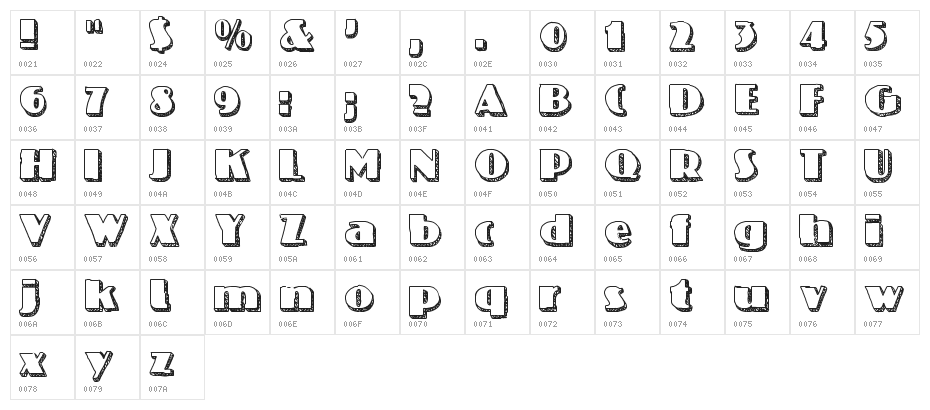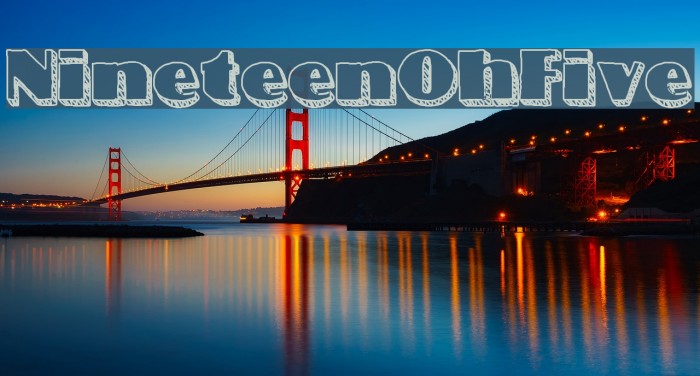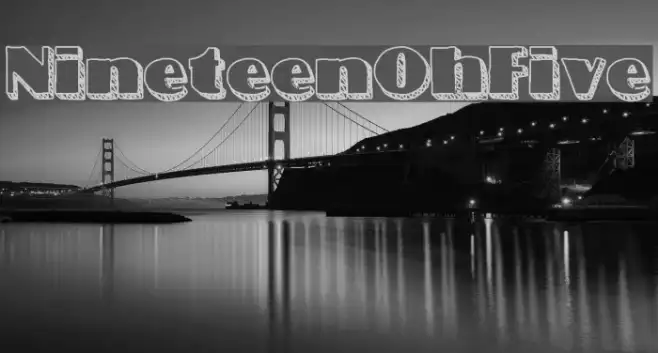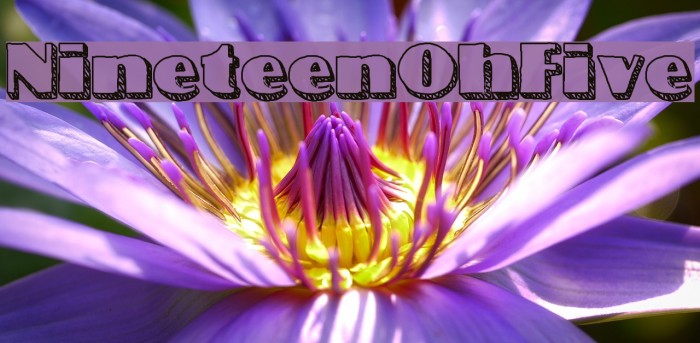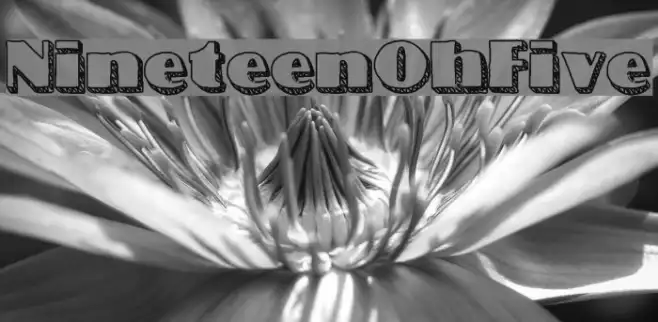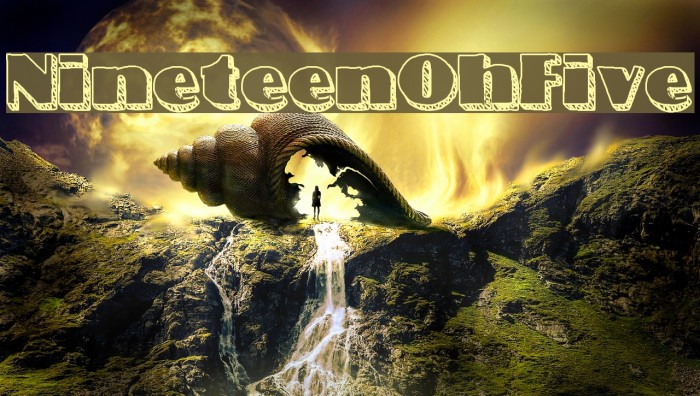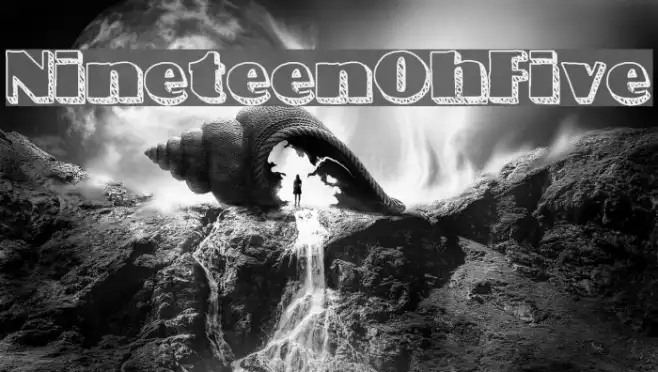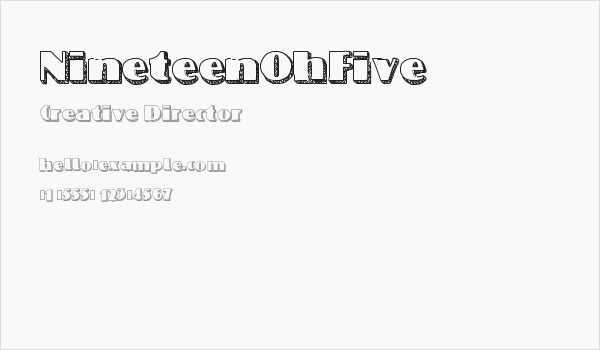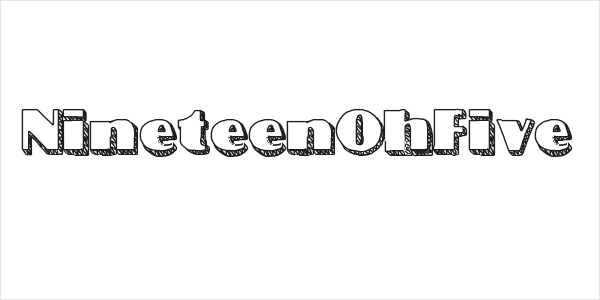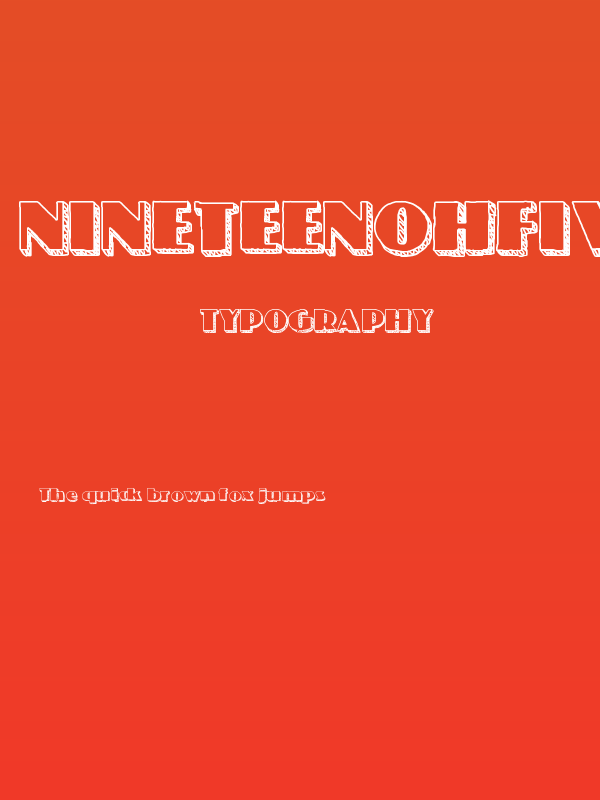
NineteenOhFive Font
NineteenOhFive Description
This font features a bold, playful style with a hand-drawn, sketch-like texture that gives it a unique and artistic appearance. The letters are outlined with a thick black border, and the interior is filled with a pattern of diagonal lines, creating a textured look. The characters are uniformly bold, with a consistent weight throughout, giving them a strong presence. The font maintains a balanced proportion between height and width, ensuring readability while adding a decorative flair. The numbers and special characters follow the same design principles, making them cohesive with the alphabet. This font is ideal for projects that require a fun and engaging visual element.
| Overall Style | Playful, Artistic |
| Proposed Projects | Ideal for children's books, comic strips, posters, and playful branding projects. |